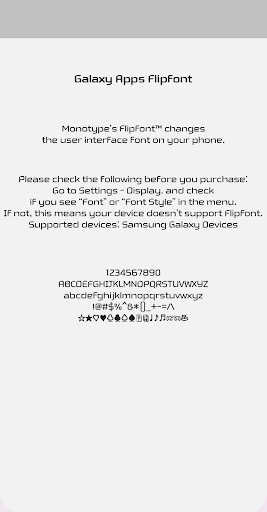
BSTCornerSquare™ Latin Flipfont
This typeface was based on the concept of a magnificent building in a large square. The wide range makes the strands good and stand out, and the flexible and soft curved shape reduces eye fatigue.